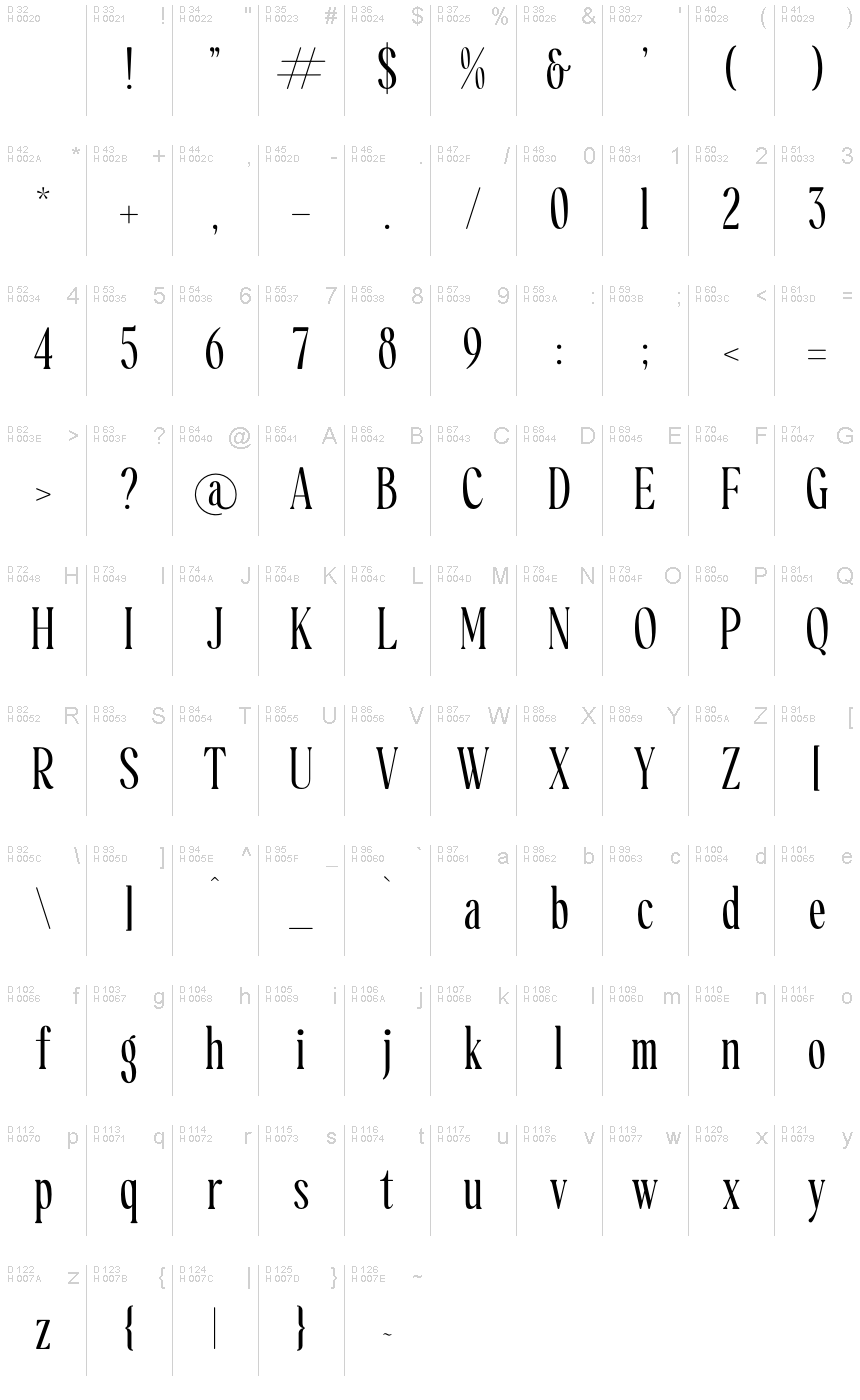
Dailyfully
Dailyfull, a captivating serif font crafted by Storytype Studio, exudes a timeless elegance with its condensed design. The intricate serifs and precise strokes create a refined, sophisticated aesthetic, while the condensed width lends a sense of structured sophistication. This font's harmonious blend of traditional and modern elements evokes a sense of refined authority, making it an excellent choice for editorial projects, formal communications, and branding applications that require a polished, professional appearance.
Dailyfull's versatility shines through in its ability to adapt to a wide range of design contexts. Whether adorning the pages of high-end magazines, gracing the headers of corporate websites, or elevating the visual impact of luxury product packaging, this font seamlessly integrates into diverse design environments. Its unique character and balanced proportions make Dailyfull a versatile tool for designers seeking to infuse their work with a touch of refined elegance.